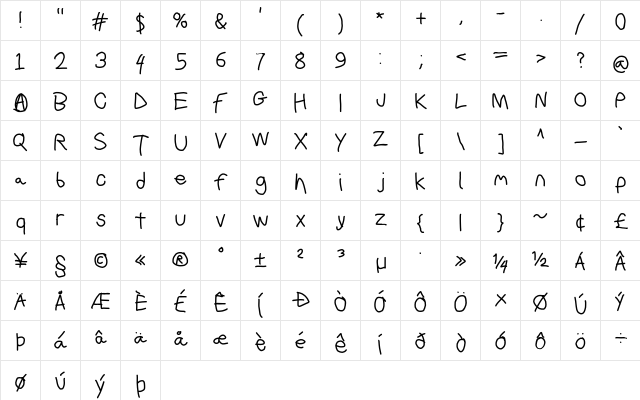
Bڲk Medium Font Preview
Bڲk Medium
Bڲk Medium Font Details
Design Context for B�ڲk Typeface
B�ڲk is a composed and adaptable typeface that performs quietly and consistently across a wide range of design contexts.